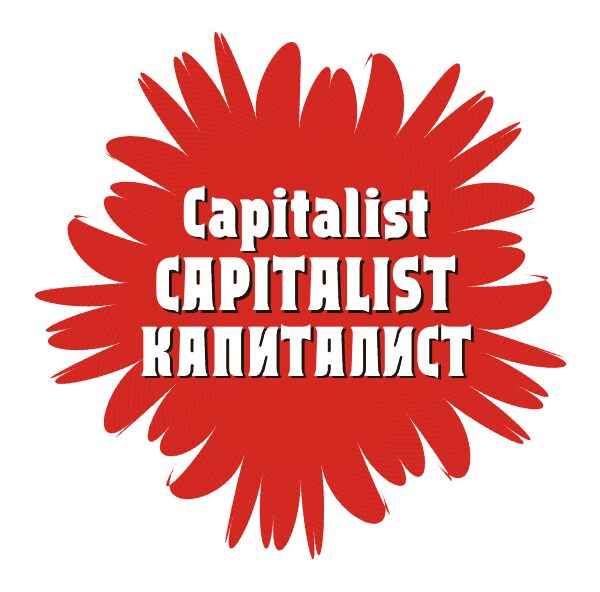
Capitalist by Denis Sherbak of Yavlenie is a free groovy display font with oversized, bulbous letters, compact inner spaces, and a distinctly hand-cut silhouette. Broad curves, blunt slab-like ends, and sudden pinched joins create a lively 1970s flavor, with irregular proportions keeping the forms loose rather than mechanical.
Its chunky bounce suits both record sleeves and playful food packaging. The same exaggerated shapes can turn festival posters into part of the entertainment, or give children's merchandise a friendly, comic-book edge that connects easily with bold illustration and flat graphic shapes.